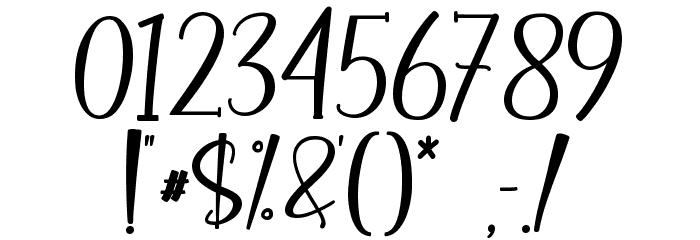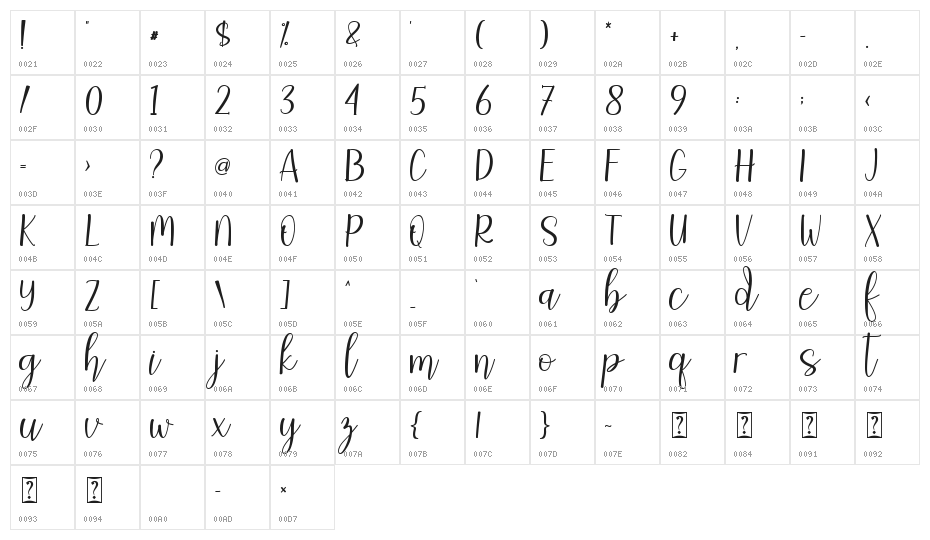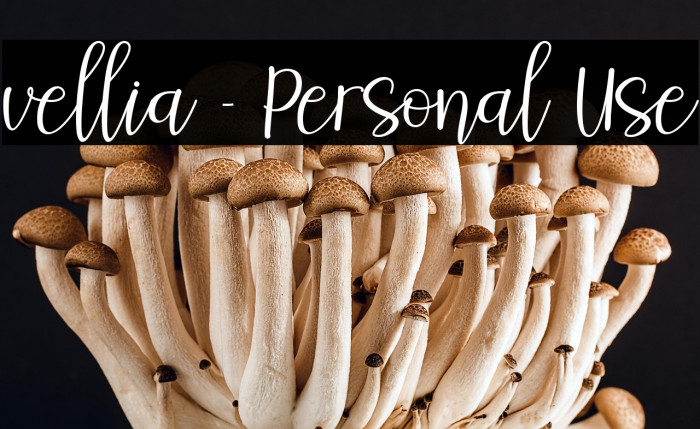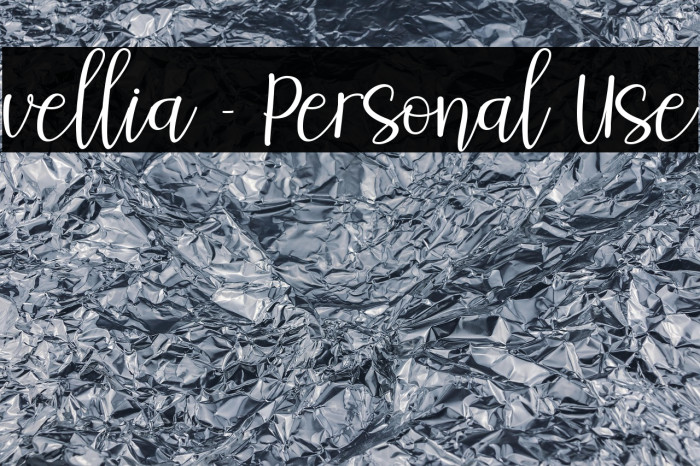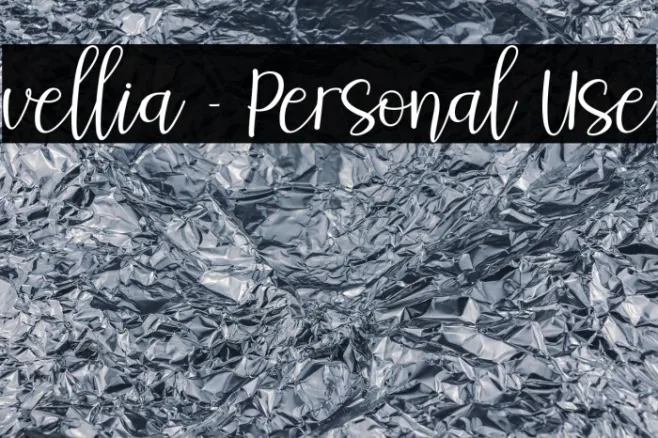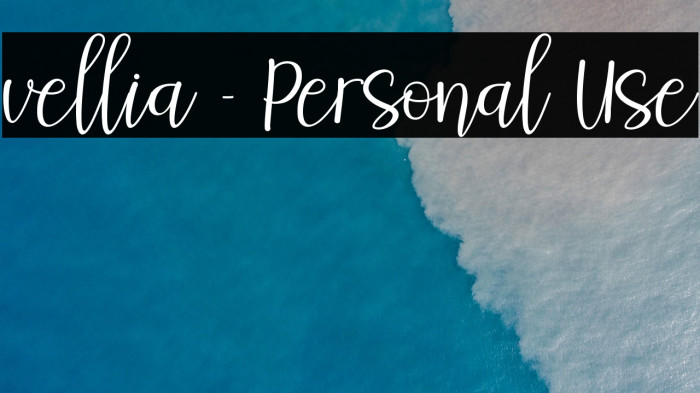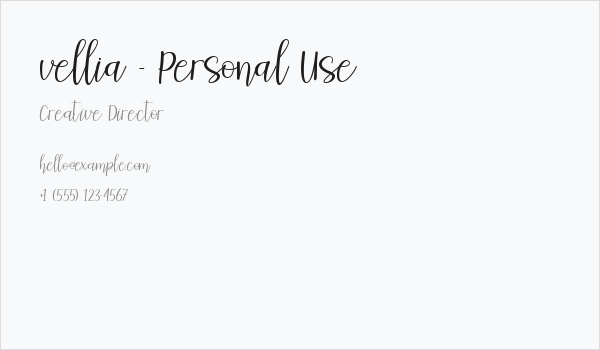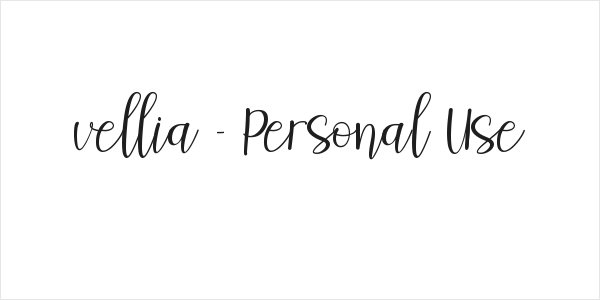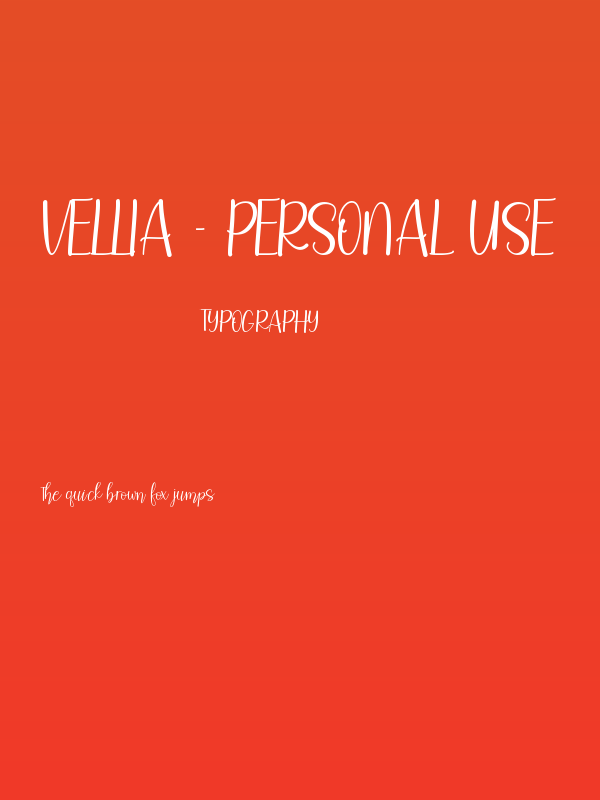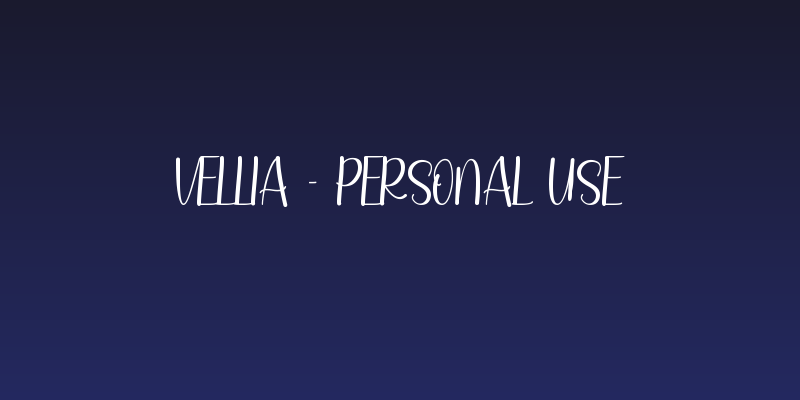
vellia - Personal Use Font
vellia - Personal Use Description
This font features a lively and flowing script style, characterized by its elegant and elongated letterforms. The uppercase letters are tall and slightly narrow, with a playful, handwritten quality. The lowercase letters maintain a consistent flow, with smooth curves and a slight slant, adding to the font's dynamic appearance. The numerals are distinct and maintain the same fluid style, ensuring readability. Special characters are creatively integrated, maintaining the overall aesthetic. This font is ideal for projects that require a personal and artistic touch.
| Proposed Projects | Ideal for wedding invitations, greeting cards, personal branding, and artistic projects. |